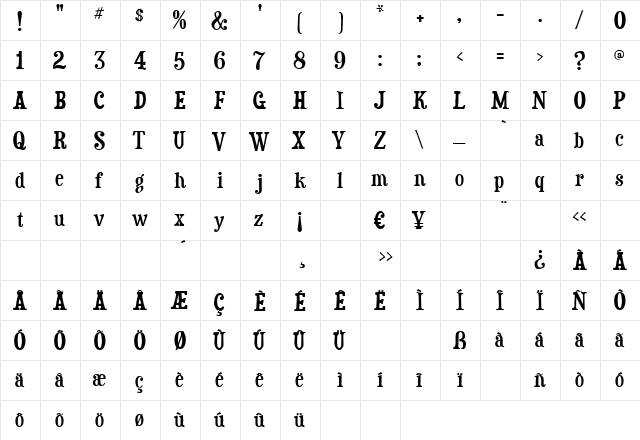
Duality Regular
Design Context for Duality Typeface
Duality offers clean, dependable letterforms without strong stylistic allegiance, making it a practical choice for designers who need flexibility.